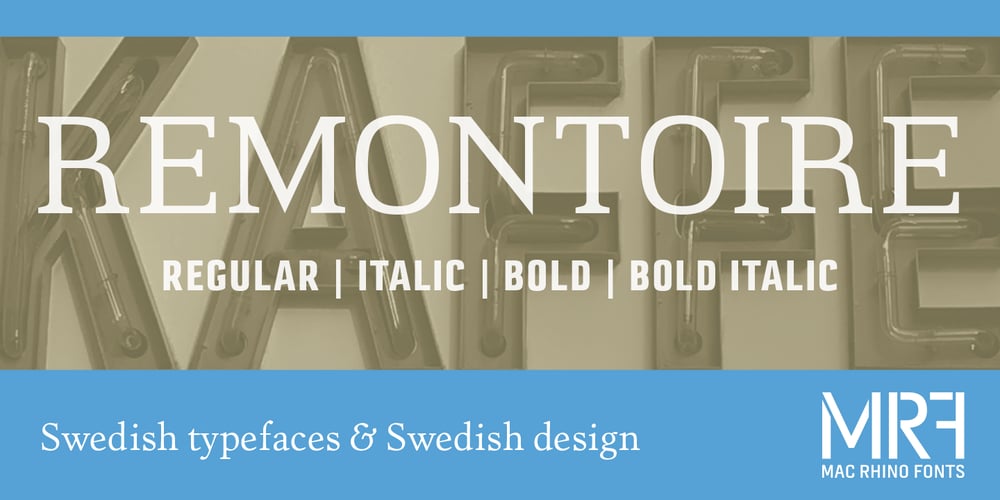
Remontoire Font Family was designed by Stefan Hattenbach and published by MAC Rhino Fonts. Remontoire contains 5 styles and family package options. The original sketches who formed the base for Remontoire is known as one of the first typefaces drawn by Karl-Erik Forsberg. It was a result of a competition set up by various typographic organizations in the early 1930. The typeface was never completed and sketches are only to be found on paper. Made only as a single font but some the character can later on be found in other of examples of his work; Carolus and Ericus. MRF developed and expanded the family into 5 weights.